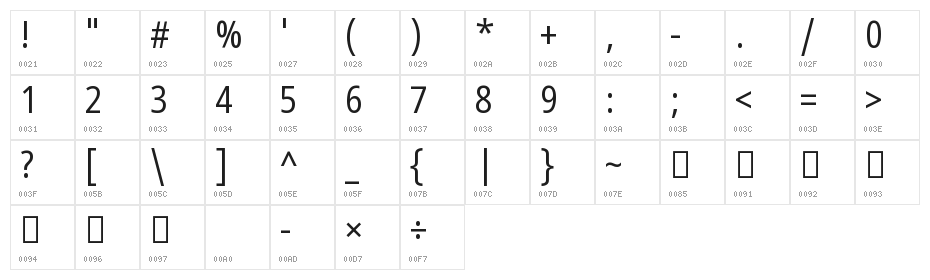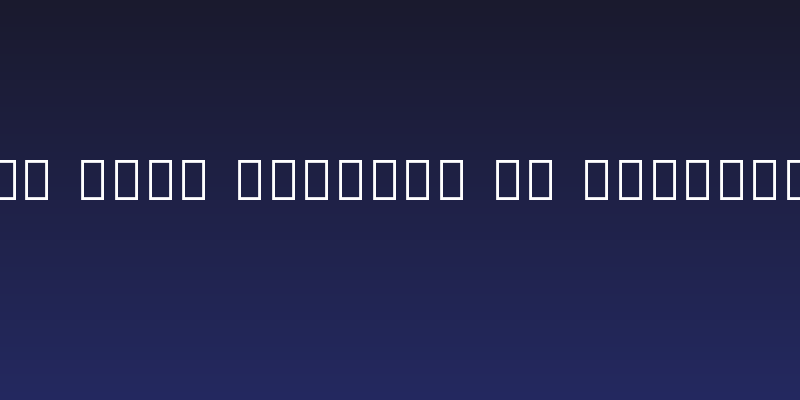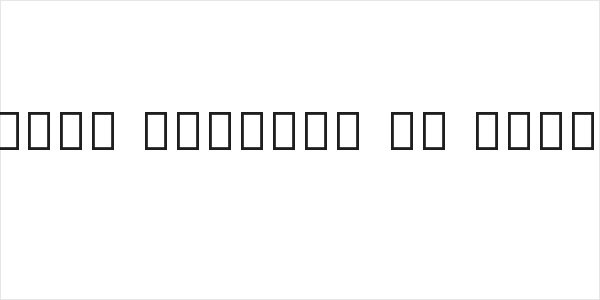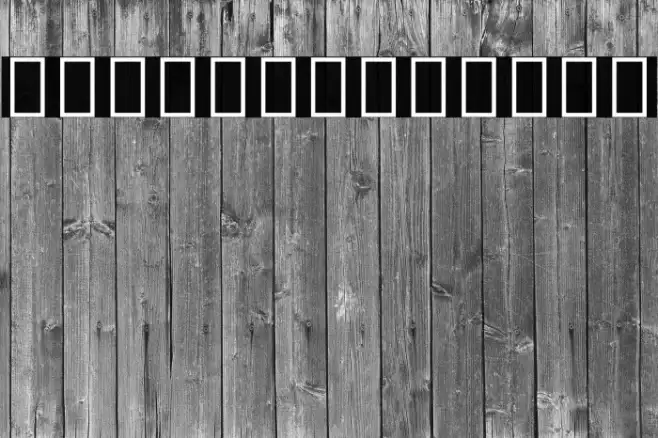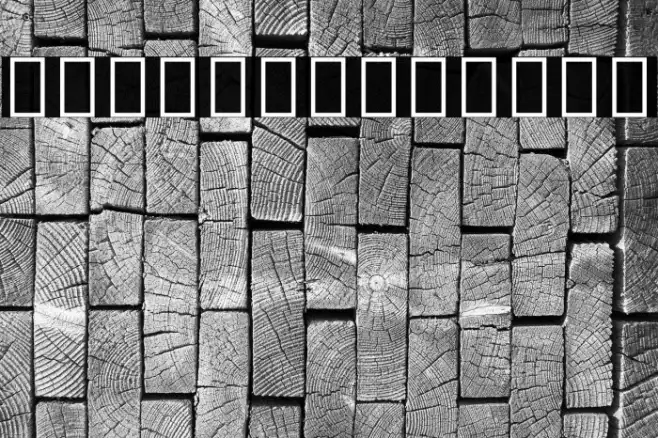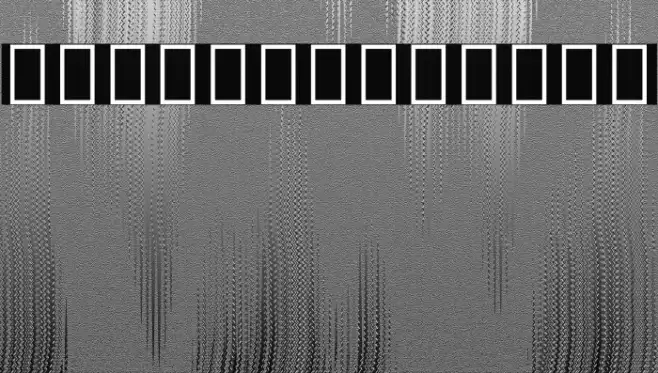
Noto Sans Sinhala UI Condensed Font
Noto Sans Sinhala UI Condensed Description
This font is a clean and modern sans-serif typeface with a condensed style, making it suitable for UI design where space efficiency is crucial. The characters are uniform in width, providing a harmonious and balanced appearance. The numerals are clear and distinct, ensuring readability in digital interfaces. The special characters are well-defined, maintaining the font's overall sleek and professional look. This typeface is ideal for applications where clarity and space-saving are priorities.
| Use Case | UI design, digital interfaces |
| Proposed Projects | Suitable for mobile app interfaces, web design, and digital dashboards. |